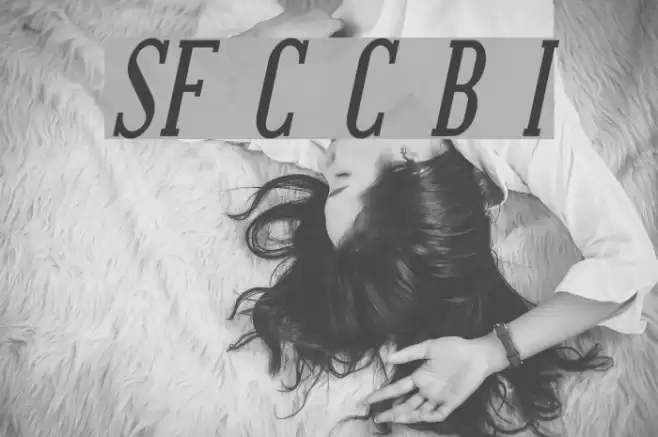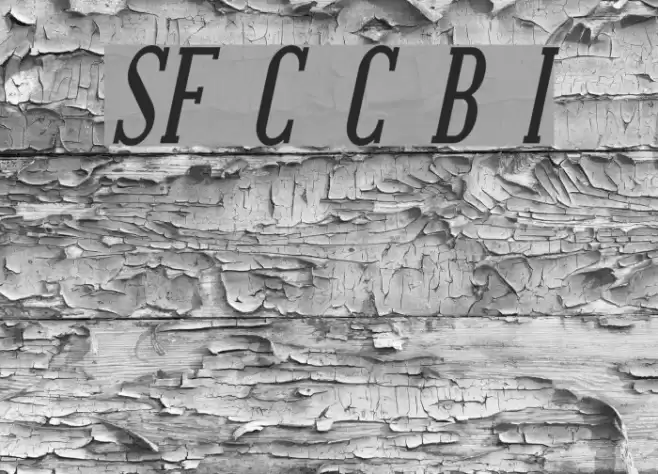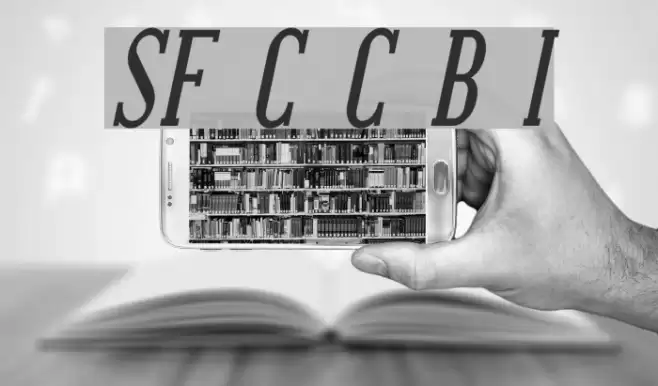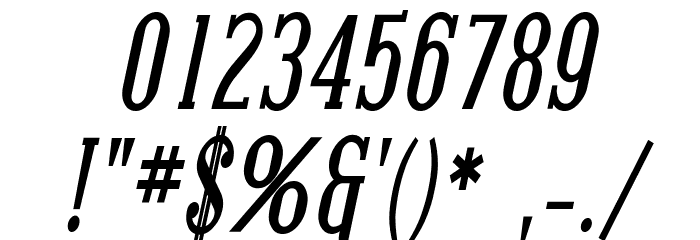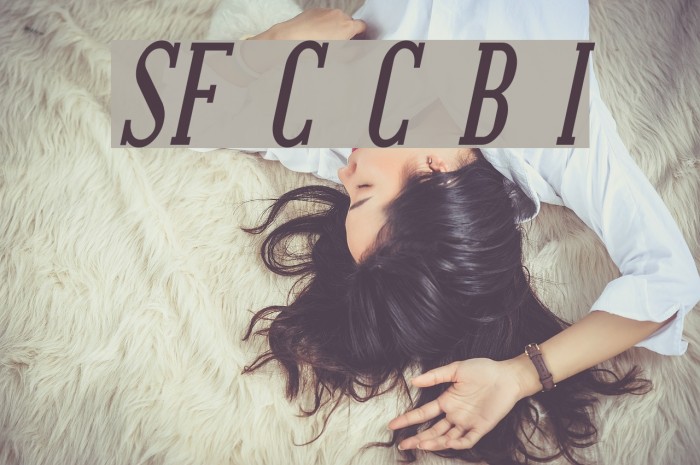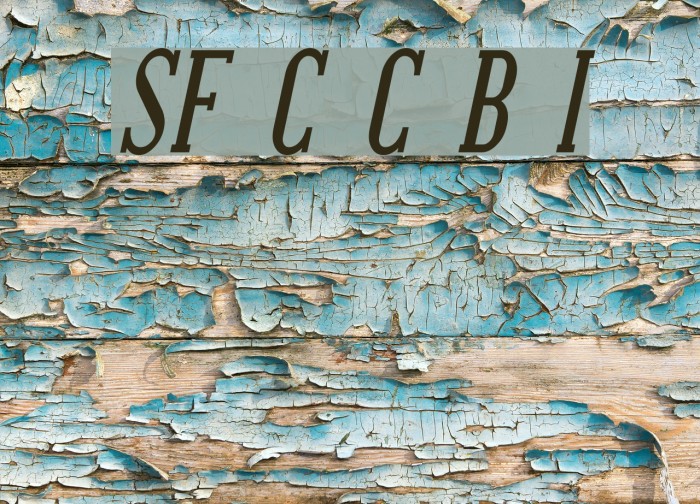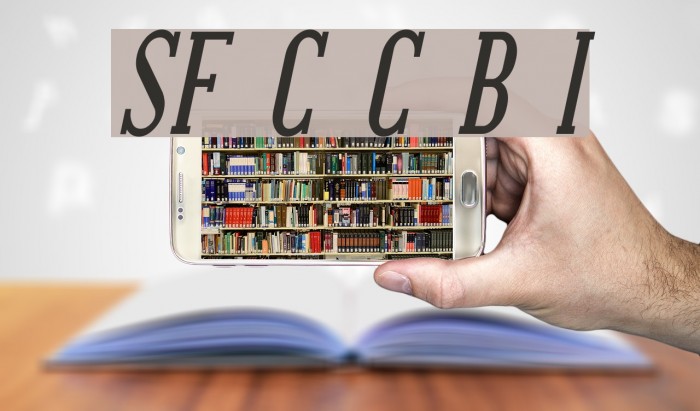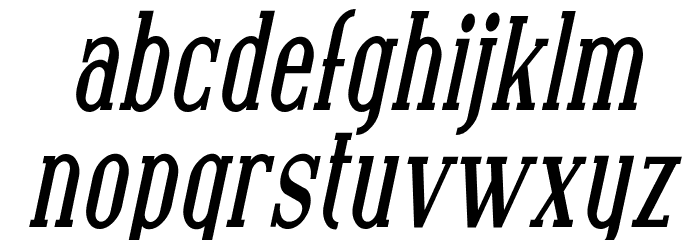
SF Covington Cond Bold Italic Font
SF Covington Cond Bold Italic Description
This font exhibits a strong, dynamic presence with its bold and italicized style. The condensed letterforms contribute to a compact and efficient use of space, making it ideal for impactful headlines and titles. The strokes are thick and consistent, providing a robust and confident appearance. The italic slant adds a sense of motion and urgency, enhancing its suitability for modern and energetic designs. The characters are well-defined, with sharp edges and clean lines, ensuring legibility even at smaller sizes. This font's distinctive style makes it a versatile choice for various creative projects.
A bold, italic, and condensed font with a dynamic and modern style from Uncategorized fonts.